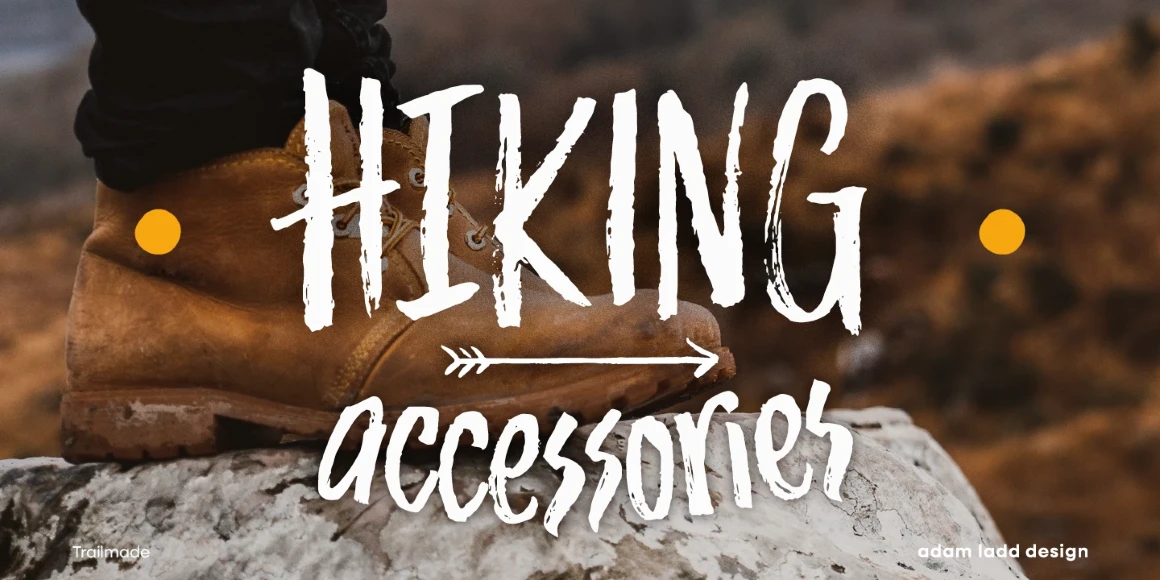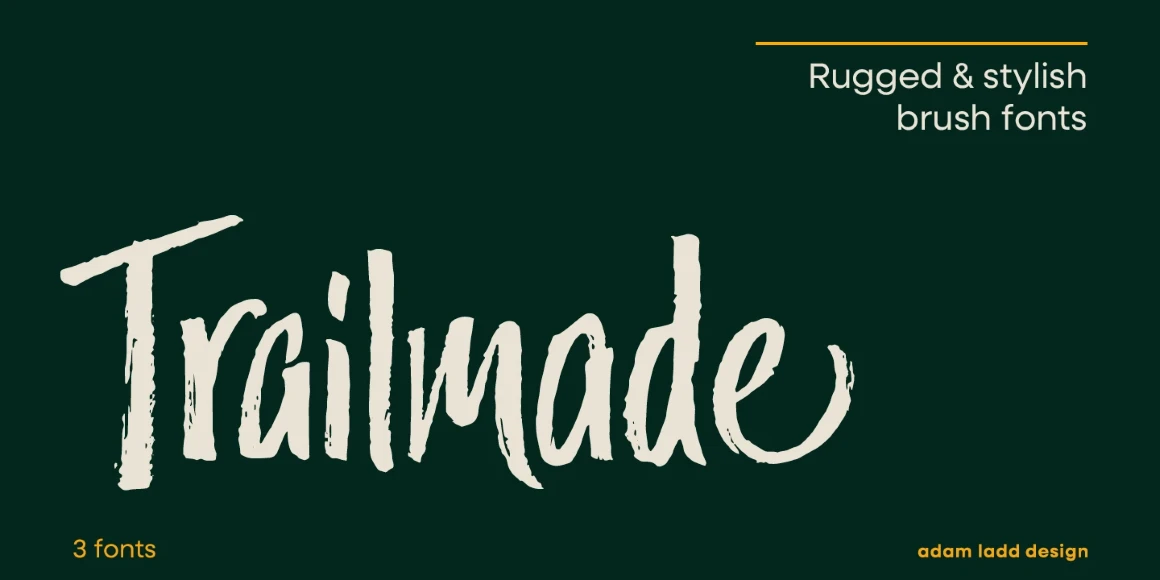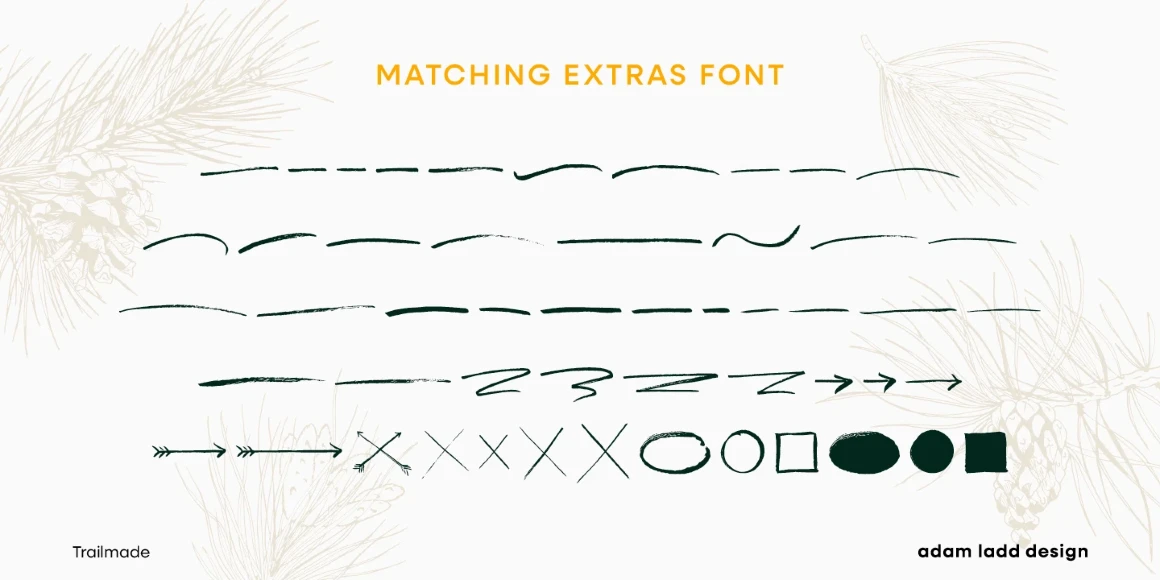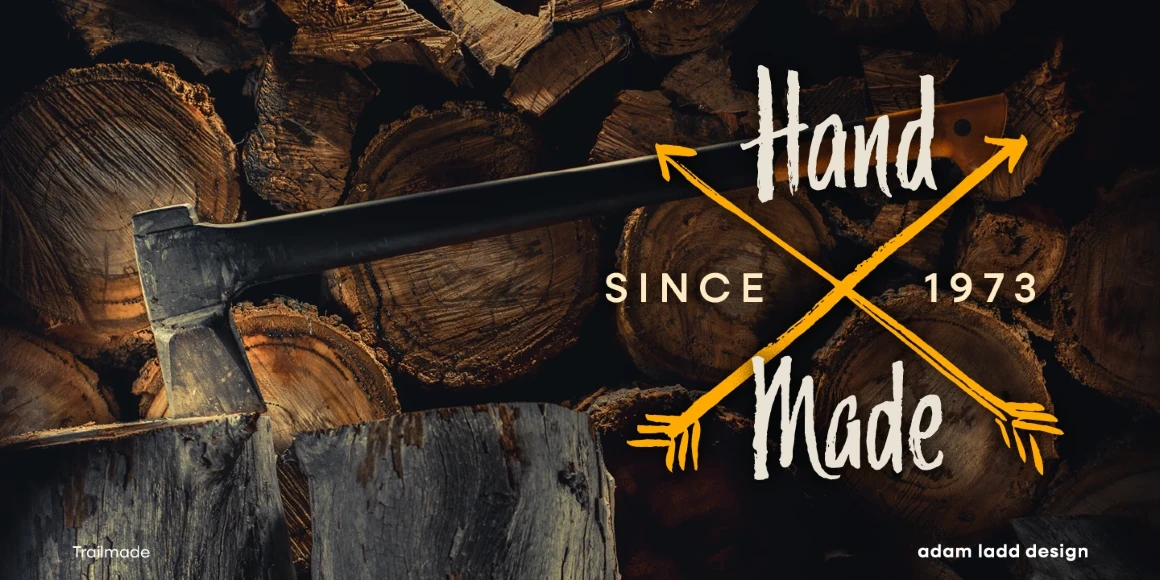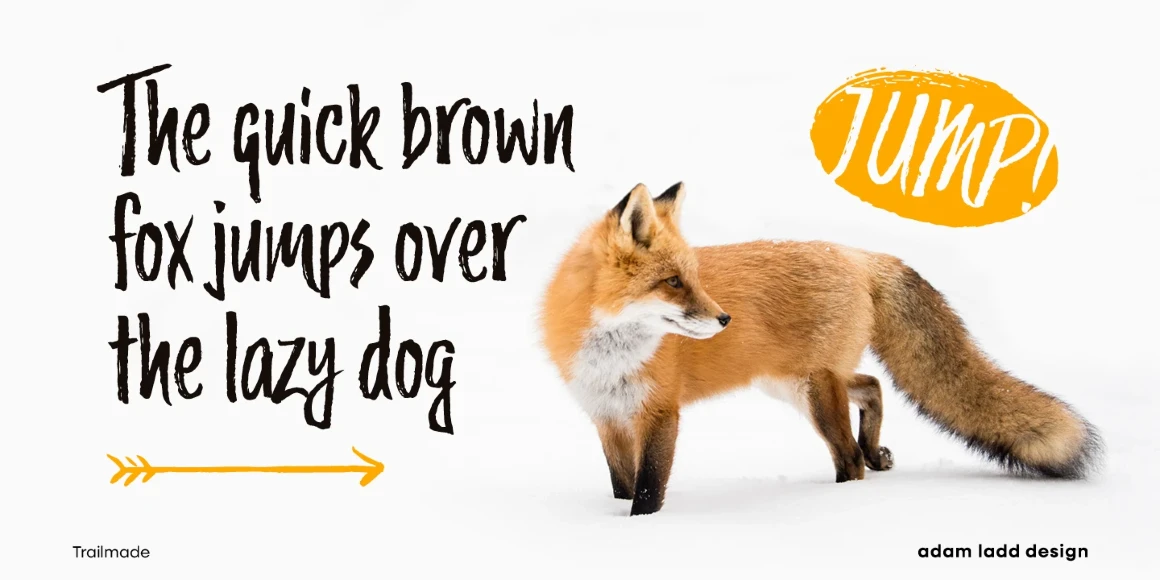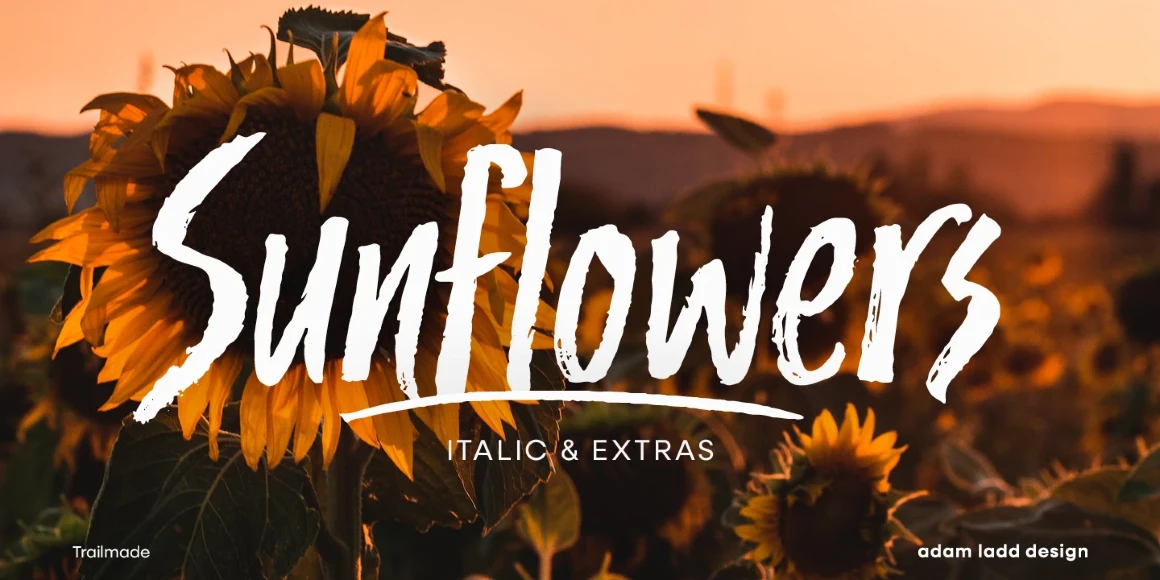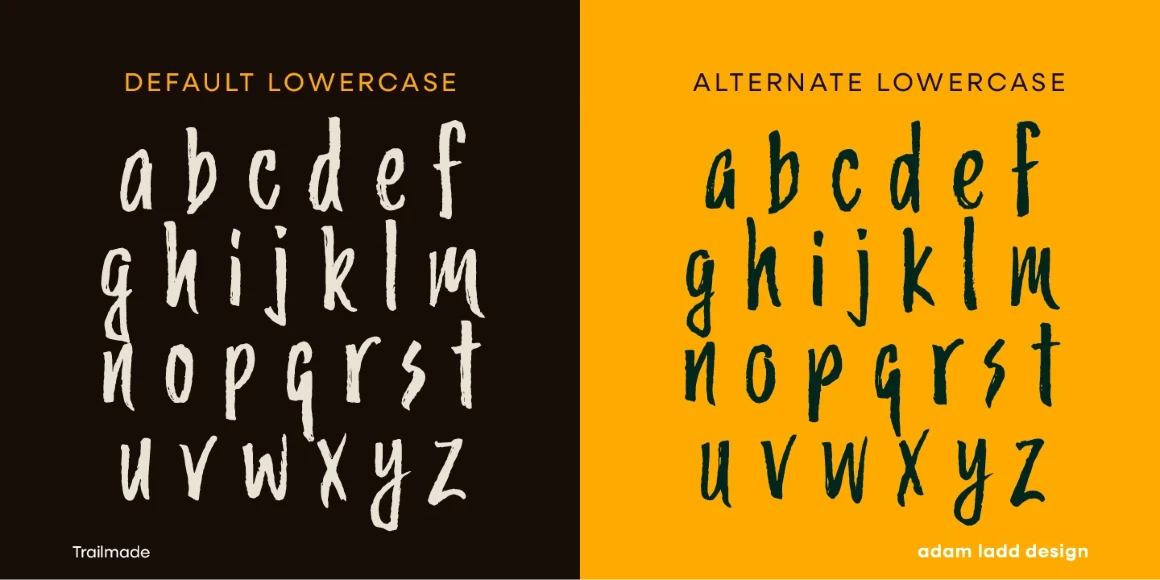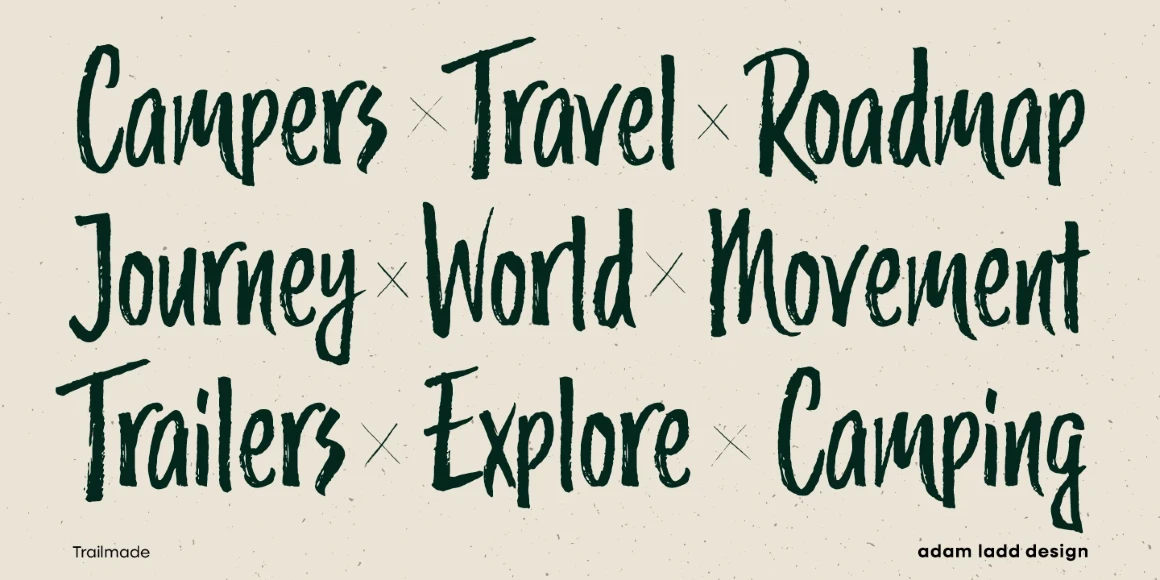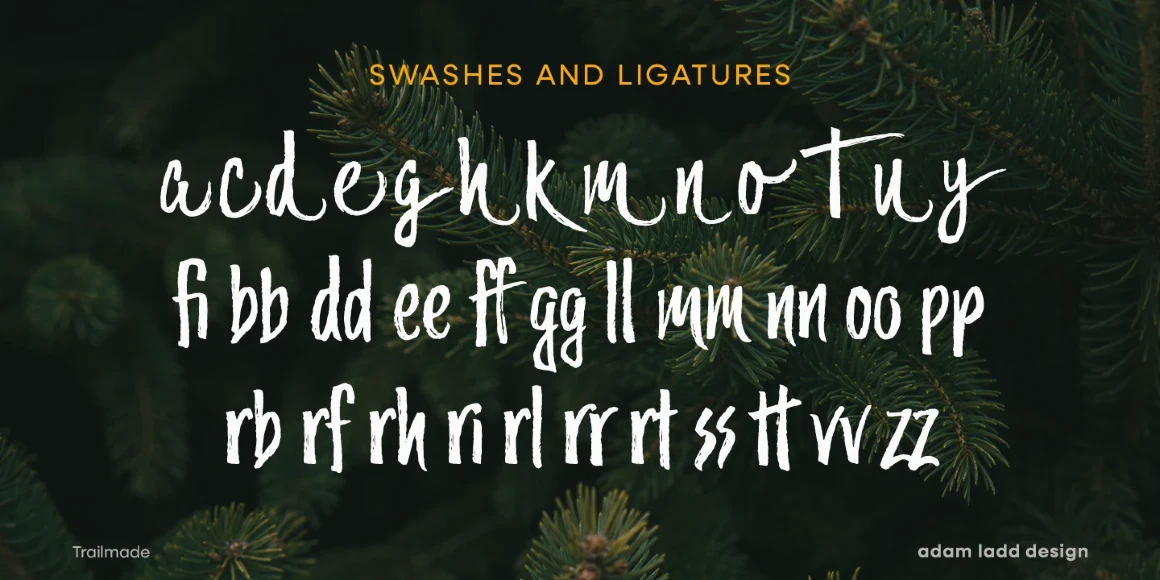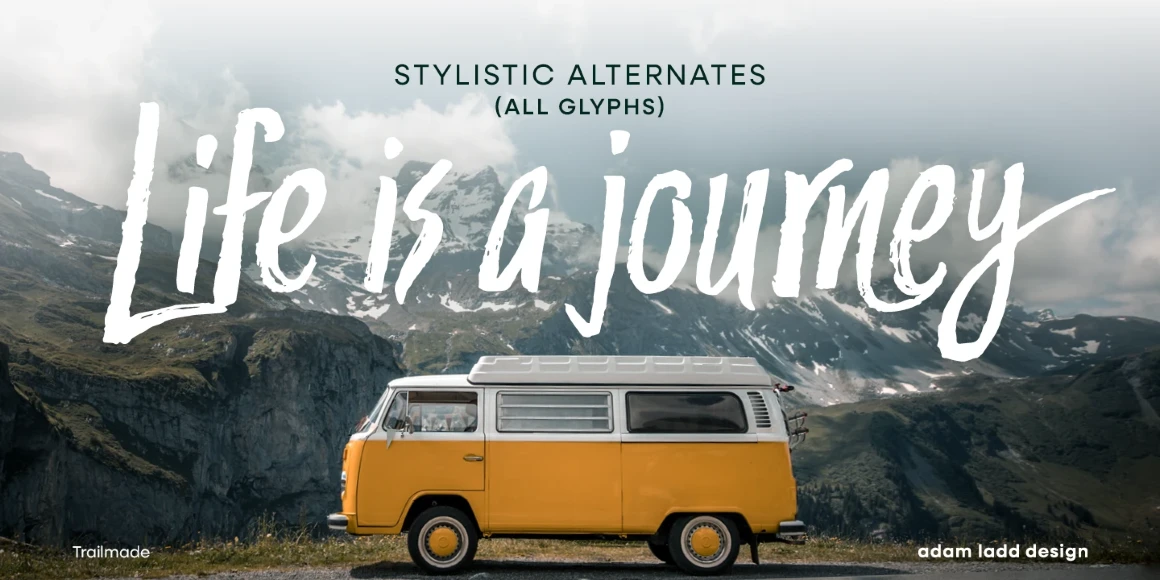
Trailmade
By Adam Ladd
Trailmade Regular
Trailmade Regular Extras
Trailmade Regular Italic
Trailmade is a rugged and stylish brush script ready to explore an adventurous path. This typeface ventures a little outside the genre but still carries echoes of it. Hand-lettered with a brush pen on paper, Trailmade includes swashes, ligatures, and a complete second set of lowercase stylistic alternates to switch in and out for a more hand-lettered feel. The matching Extras font features various lines and dingbats to complement and enhance your wild and untamed graphic design projects.